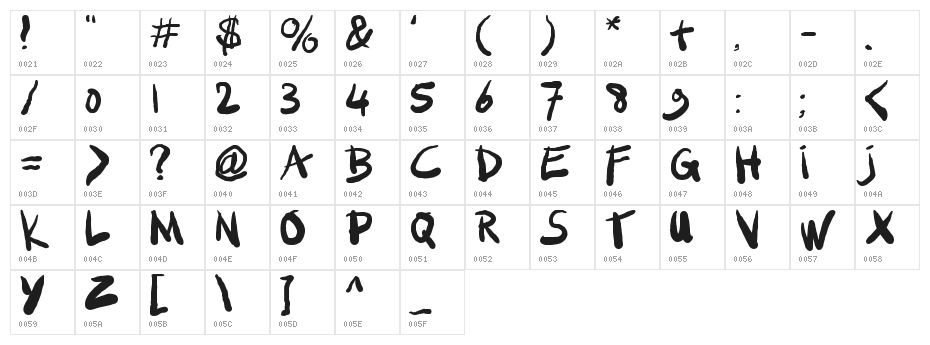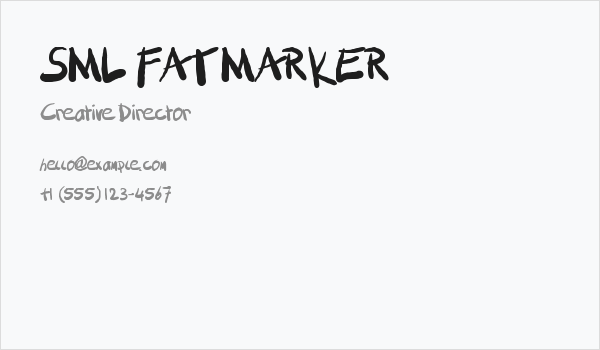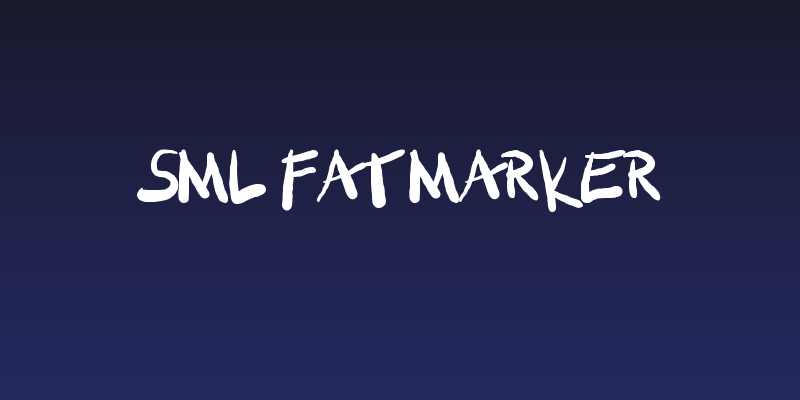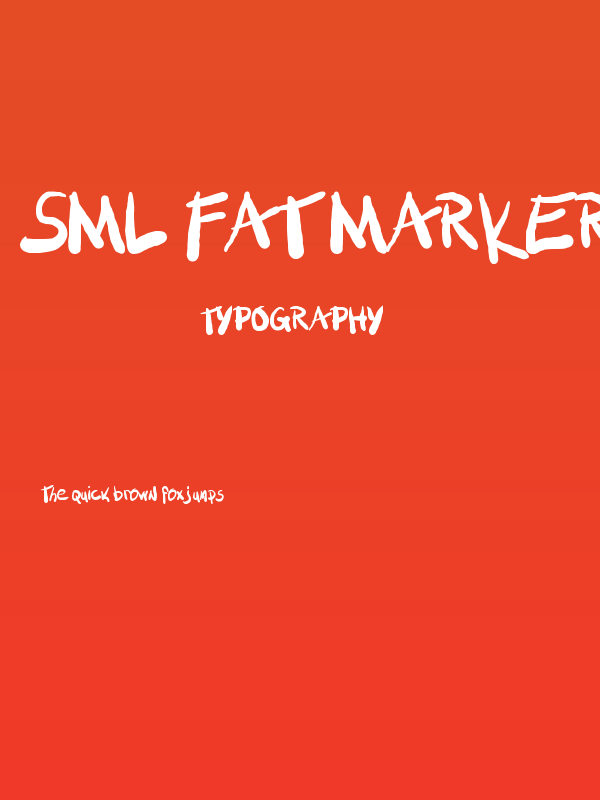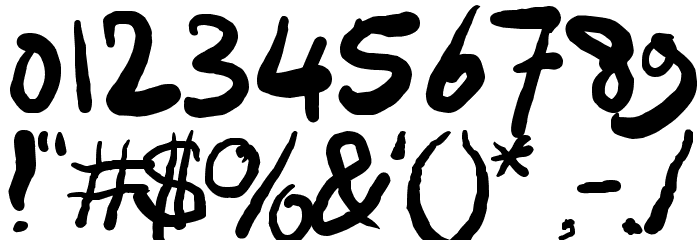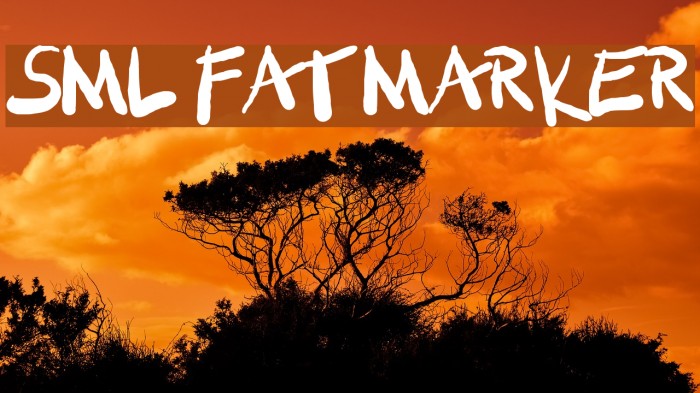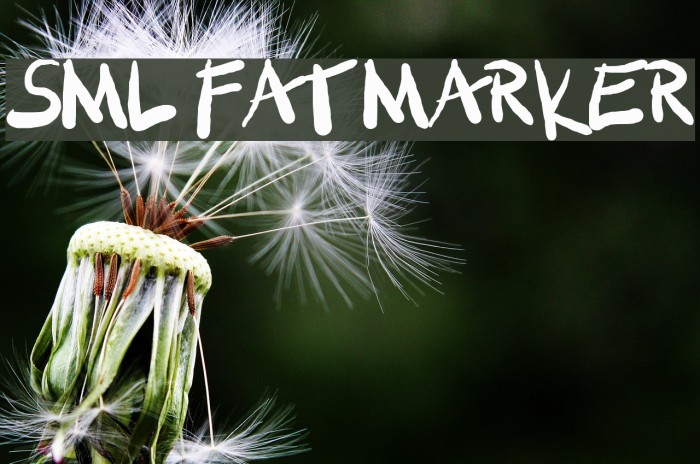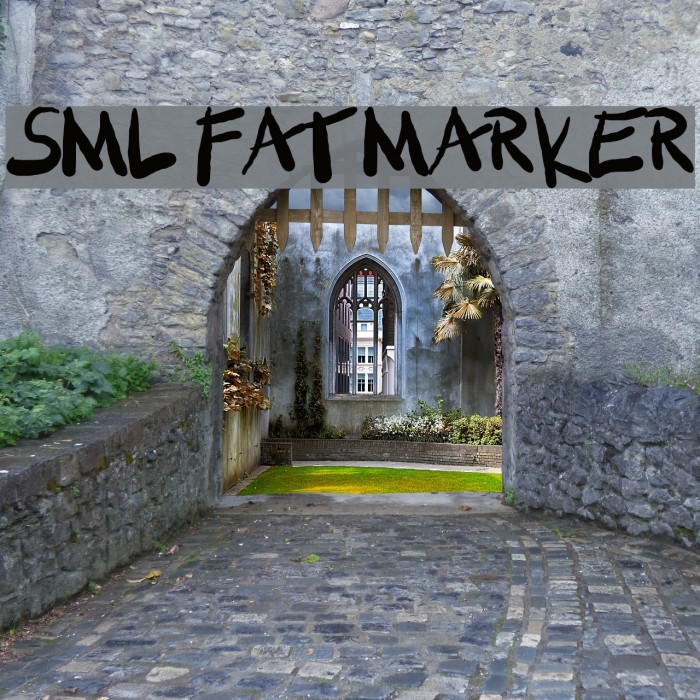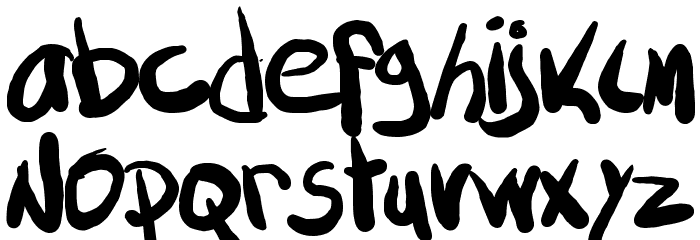
SML FAT MARKER Font
SML FAT MARKER Description
This font exudes a bold and expressive style, reminiscent of hand-drawn marker strokes. The characters are thick and uneven, giving a casual and dynamic appearance. The uppercase and lowercase letters maintain a consistent weight, with rounded edges and a slightly irregular baseline that adds to the informal charm. Numbers and special characters follow the same bold, playful aesthetic, making them stand out prominently. The overall look is energetic and artistic, suitable for projects that require a personal touch or an eye-catching headline.
| Proposed Projects | Ideal for posters, graffiti art, children's book covers, and creative branding projects. |